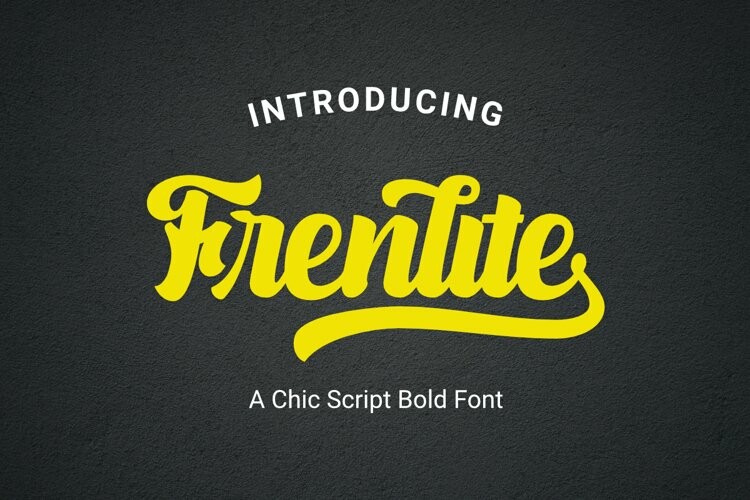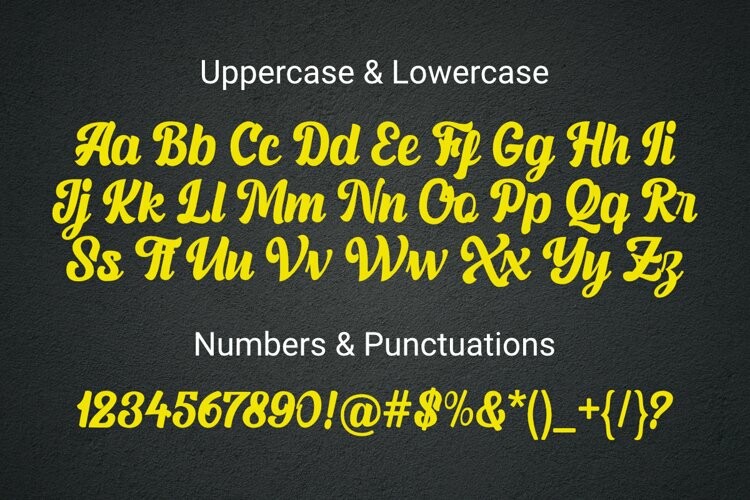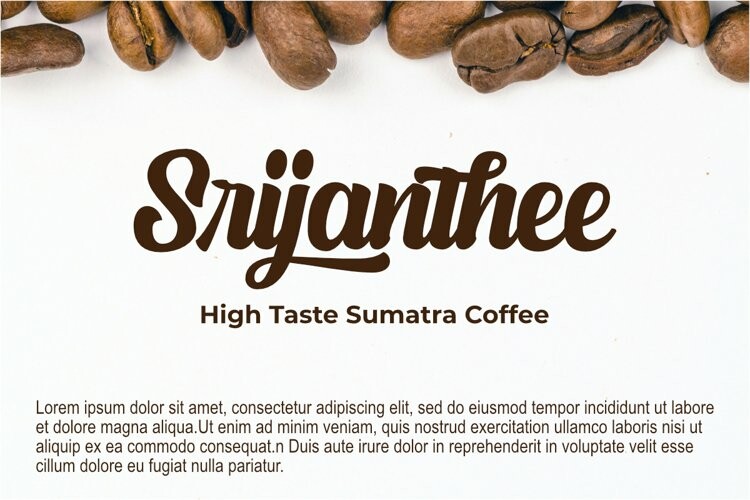
Frenlite Font
Frenlite FontFrenlite is a script bold font featuring the perfect amount of trendiness. Whether you’re using it for crafting, apparel, banner, signage, logo it’s perfect!